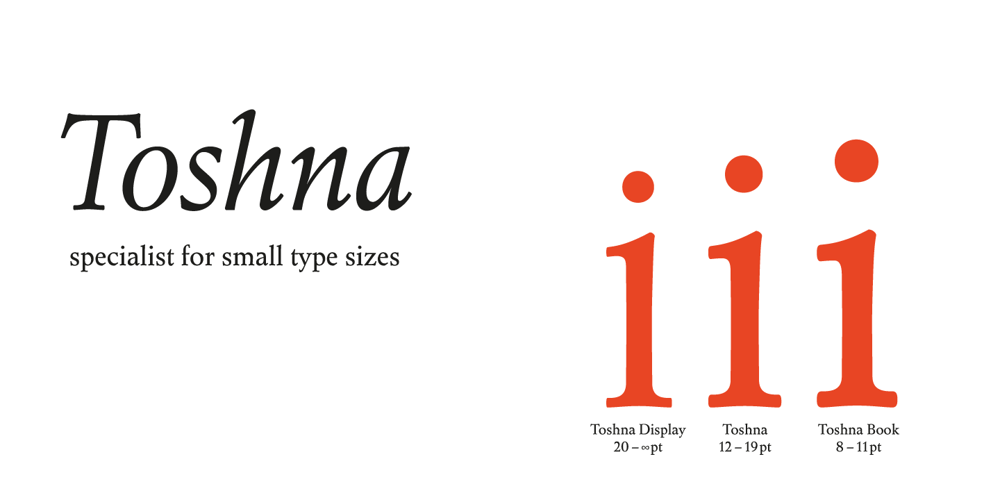
Toshna Font Family was designed by Andreas Seidel, Hellmuth Tschörtner and published by astype. Toshna contains 9 styles and family package options. Toshna is a classic garaldic typeface family offering three real optical type sizes. The Display weight for titles and headlines is kept very tall, thin and graceful. The Book weight for body text is drawn essentially wider, more round with robust, bold details. The punctuations and accents strictly serve the demands of body text. They are substantially bigger and more readable. Despite the fact that the width is running economically, the user notes the fonts ‘big face, that qualifies for eye friendly long texts.